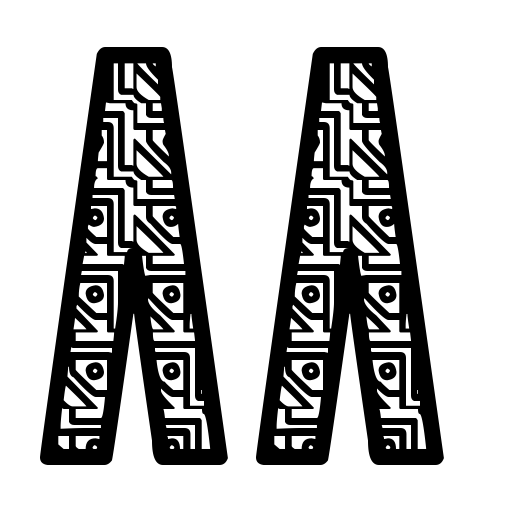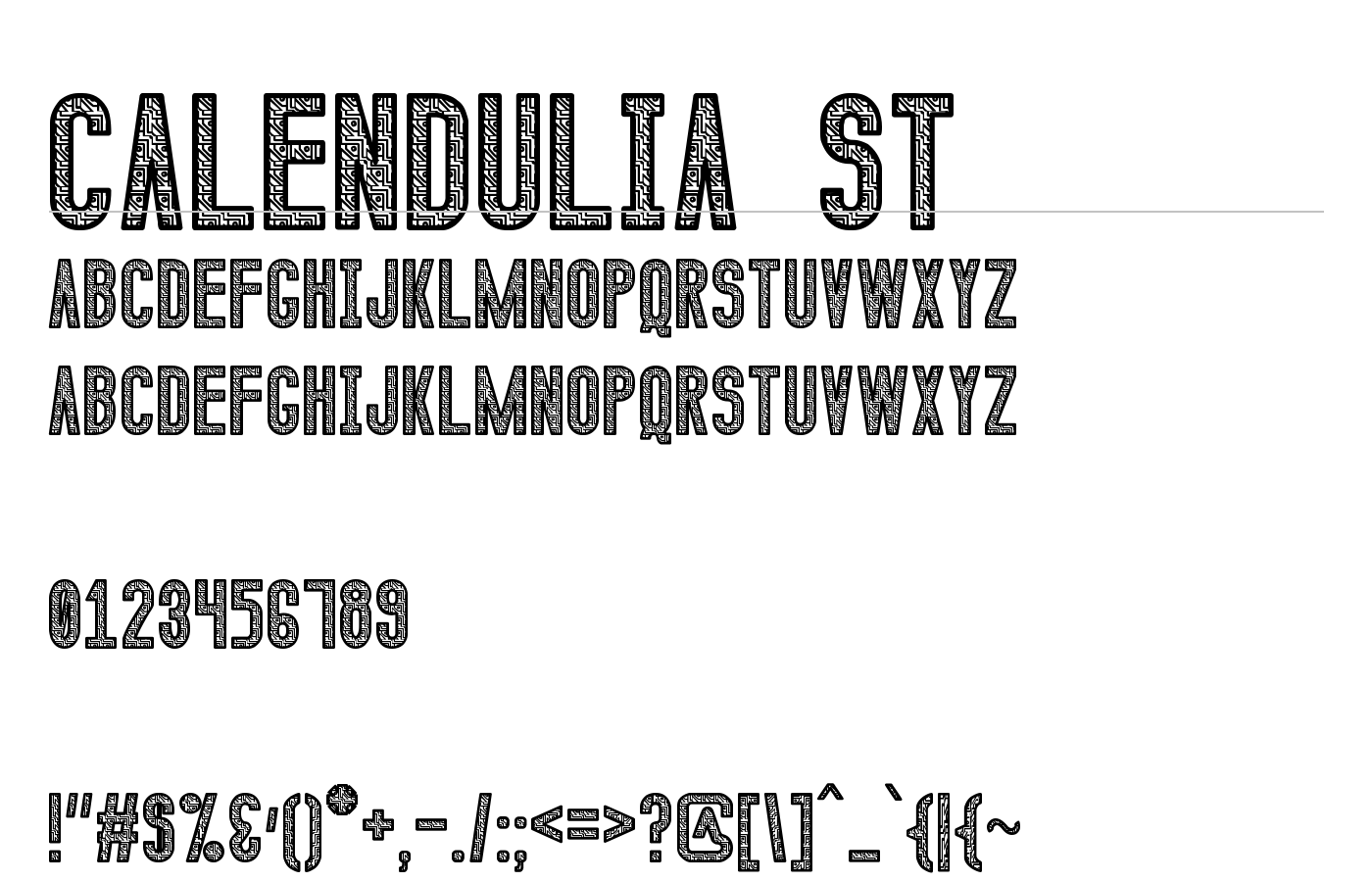
Calendulia St is a bold, condensed sans serif font featuring a distinctive decorative pattern inside its tall, narrow uppercase letters and numerals. Its strong geometric shapes paired with intricate inner linework give it a modern yet ornamental feel, making it ideal for eye-catching headlines, branding, and packaging where a unique and stylish look is desired. This font stands out in creative projects that need a blend of structure and artistic flair.
Calendulia St Font
About Calendulia St Font
| Font family | Calendulia St Font |